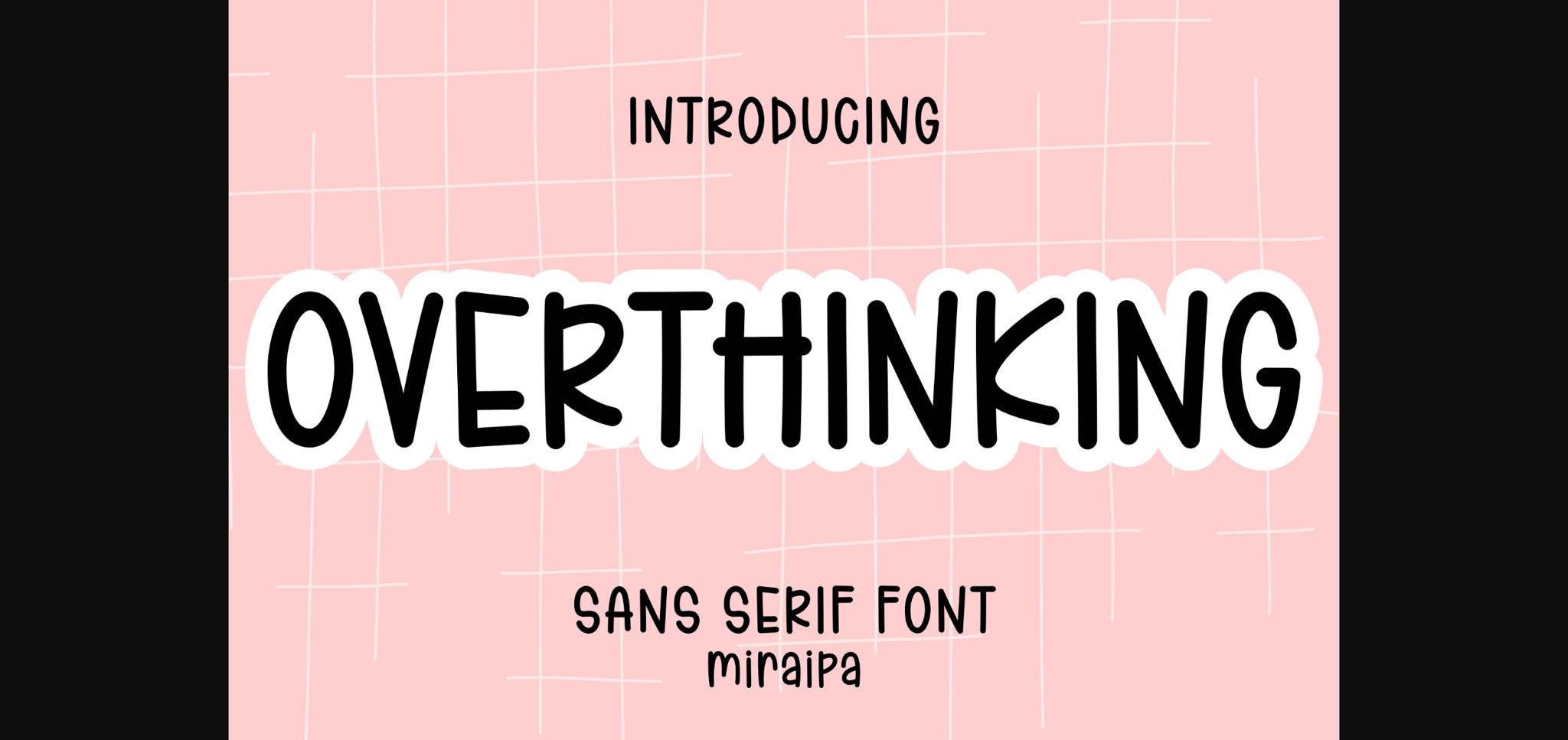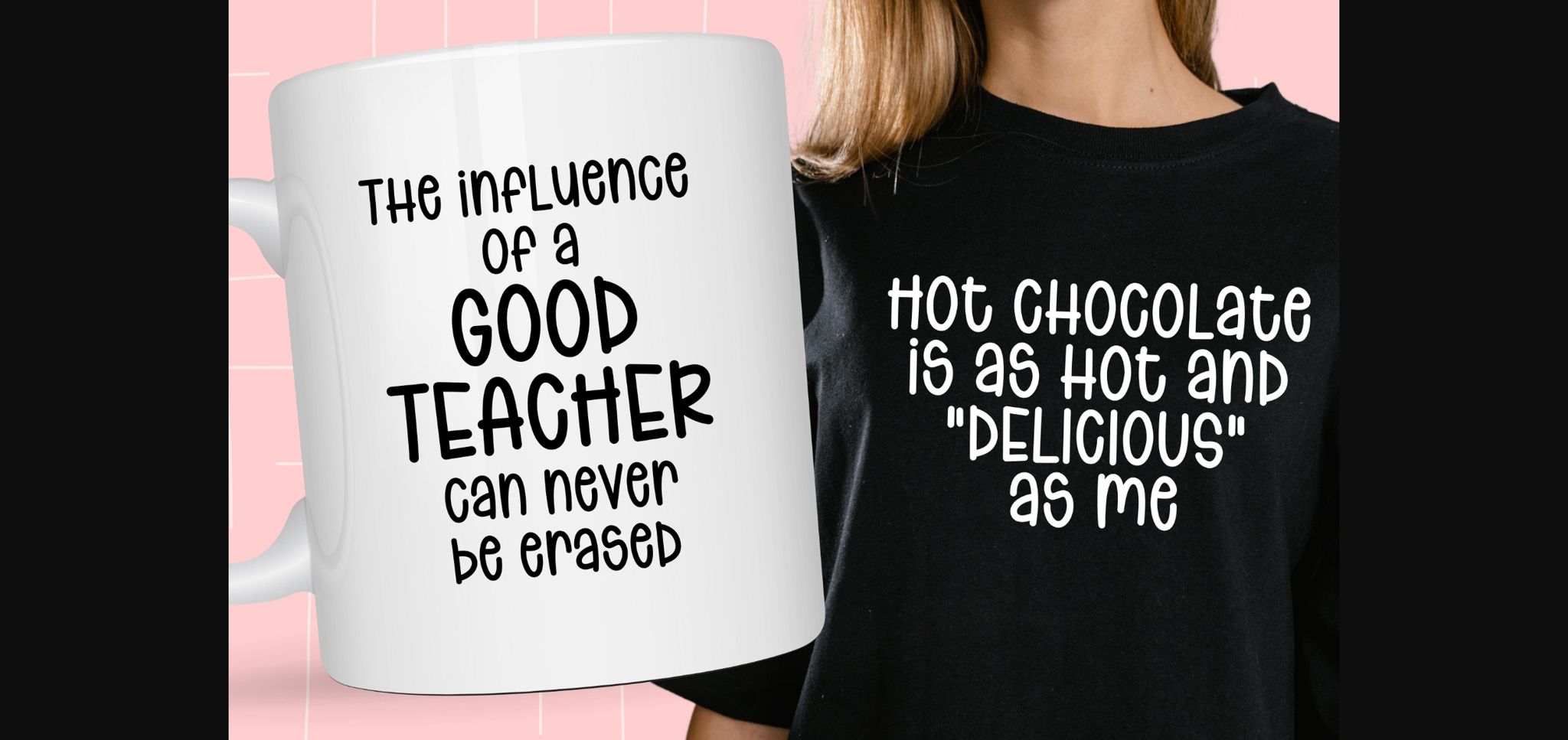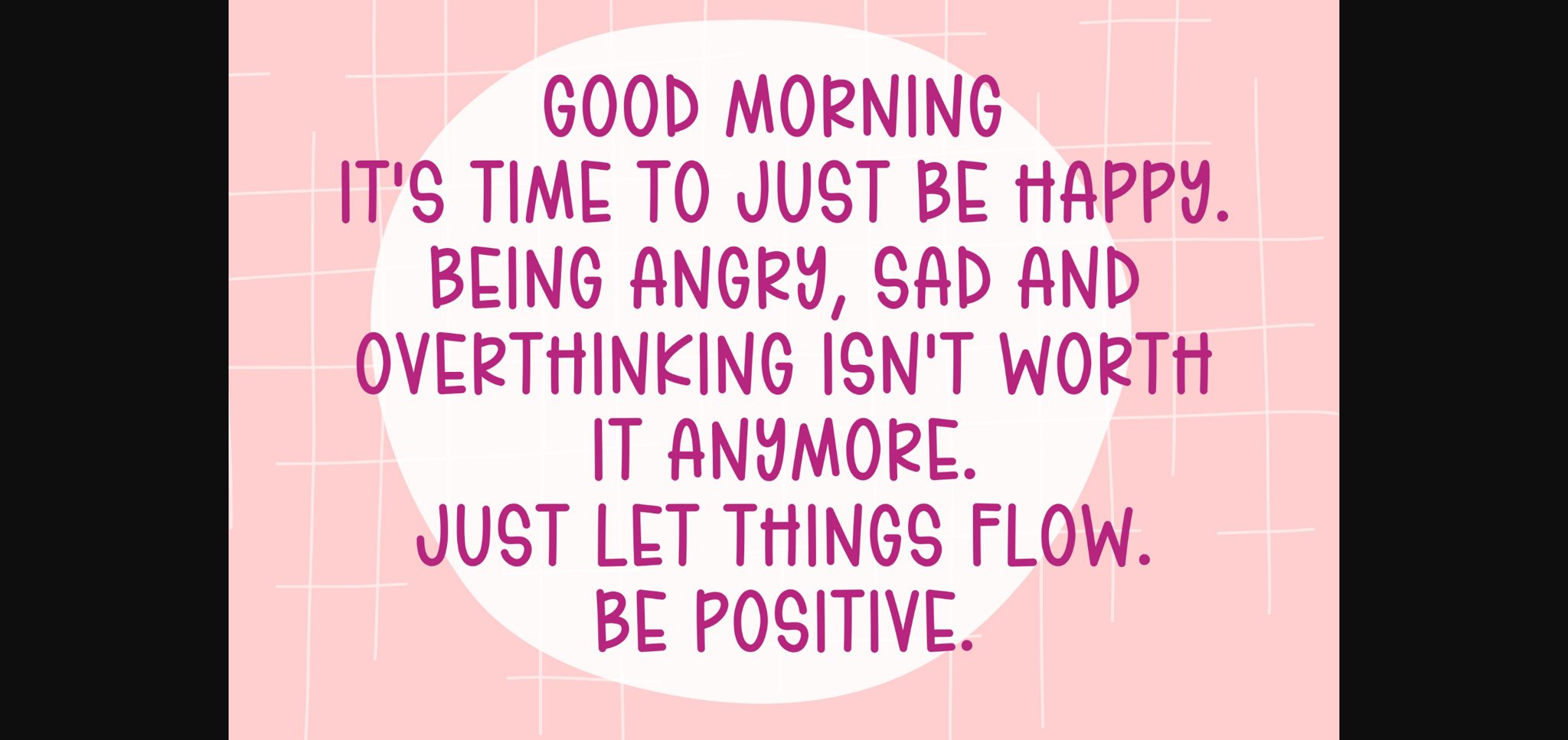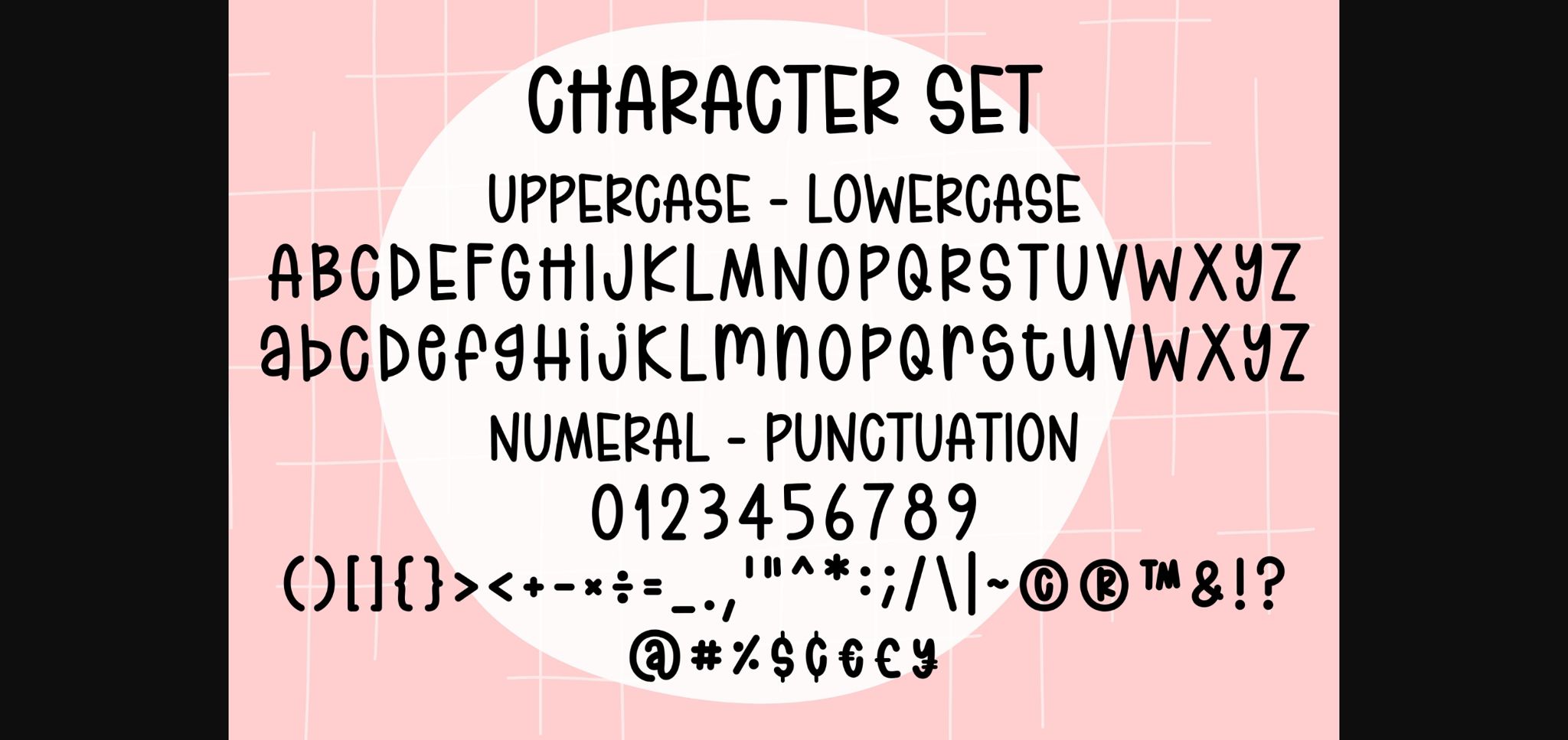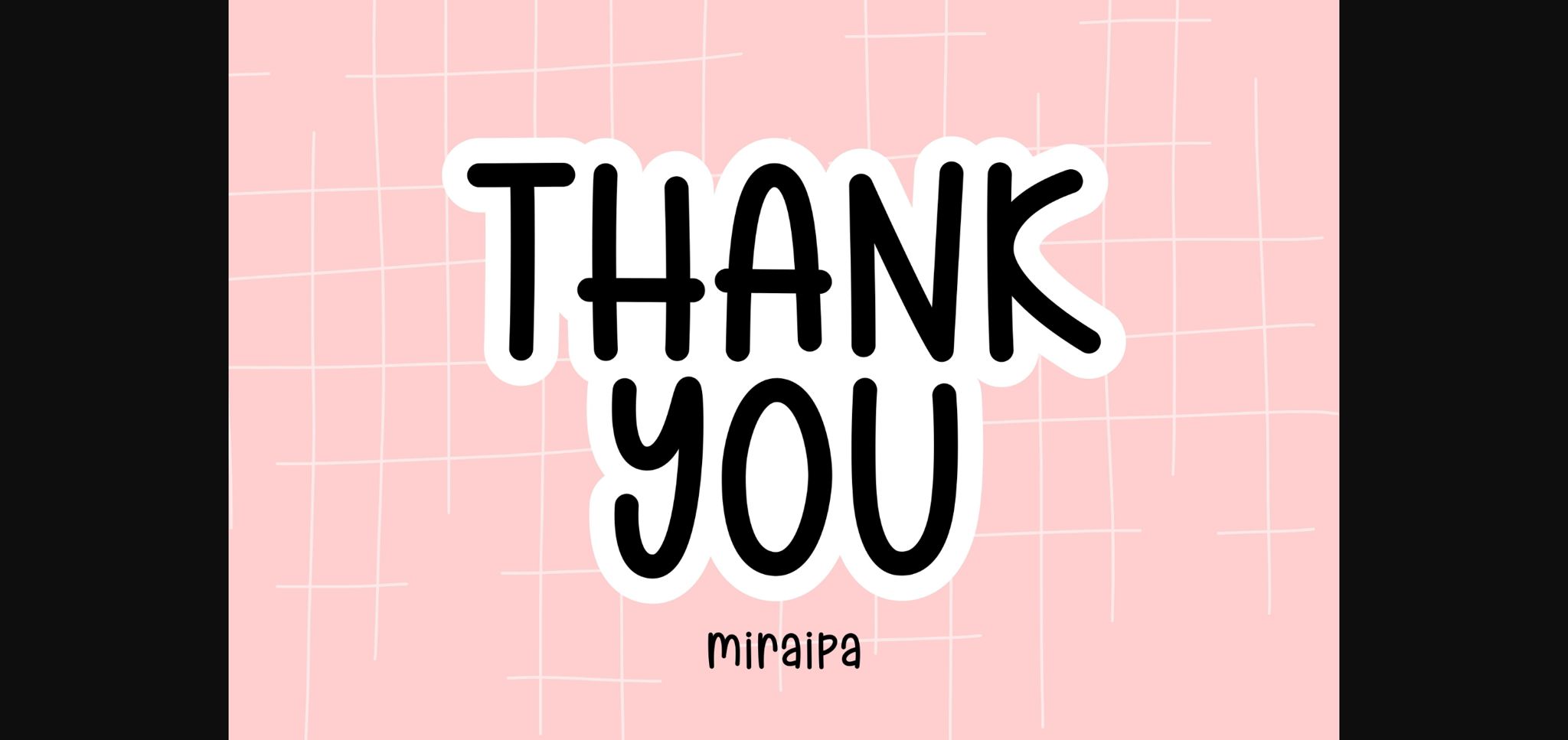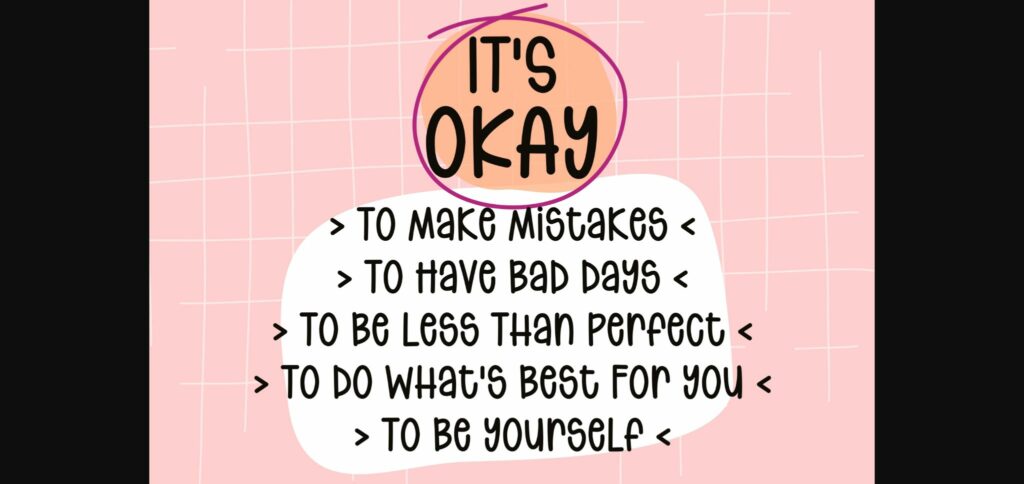
HomeSans Serif FontsOverthinking Font Sans Serif Fonts Overthinking Font FacebookXPinterestWhatsApp 1 of 8 ... Overthinking Font Poster 2... Overthinking Font Poster 3... Overthinking Font Poster 4... Overthinking Font Poster 5... Overthinking Font Poster 6... Overthinking Font Poster 7... Overthinking Font Poster 8... About Overthinking Font Overthinking is designed in a cute and playful sans serif font style. It is charming, whimsical, and a bit quirky. It would be an amazing addition to your fun projects and designs. DOWNLOAD NOW People also explored Chrystelle Font Hummer Miller Mikhail Font Trente Neuf Shignatture Font Mawar Monogram Font Summer Beach Font Simple Font Necrodemon Font 272 0 TagsOverthinking Font Previous articleSang Duen O FontNext articleThe Jungle Font LEAVE A REPLY Cancel reply Comment: Please enter your comment! Name:* Please enter your name here Email:* You have entered an incorrect email address! Please enter your email address here Website: Save my name, email, and website in this browser for the next time I comment. Personal Use Free Almonte Personal Use Free Read more about this font Rionaldo Angelo Personal Use Free Read more about this font Micahel Personal Use Free Read more about this font Pretender Personal Use Free Read more about this font BLOG 5 Fonts That Will Dominate Design Trends in 2026 5 Fonts for 2026 That Will Dominate Design Trends Typography plays a critical role in visual communication, and as we look ahead to 2026, it’s... To increase your work productivity, choose the most readable fonts. How to Cut Any Font on Cricut: Convert a Font to SVG (Free) Best Fonts for T-Shirt Design – Top 2025 Picks